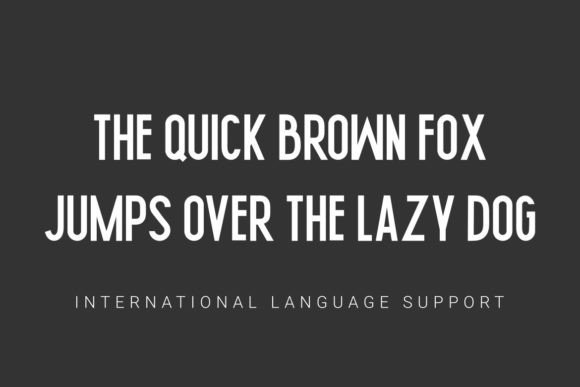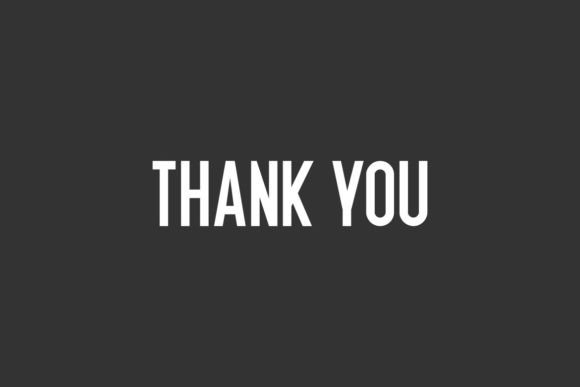
Introduction to Nikeflix Font Font
Fonts play a crucial role in design, and the Nikeflix Font font is a typeface that brings both character and versatility to any project. Whether you’re working on a branding project, a website, or a print design, the Nikeflix Font font offers a unique style that can elevate your work.
Nikeflix is a simple and bold sans serif font.
This beautiful and professional typeface is suitable for film posters, headlines, block letters, subheadings, logo designs, and so much more .
Key Features of Nikeflix Font Font
Why Choose Nikeflix Font Font?
The Nikeflix Font font is more than just a typeface – it’s a design tool that helps you communicate your message with style and clarity. Its unique character set and versatile design make it suitable for a wide range of applications, from elegant invitations to bold headlines.
With its carefully crafted letterforms and balanced proportions, the Nikeflix Font font ensures readability and visual appeal across all mediums.
What makes Nikeflix Font font special?
The Nikeflix Font font stands out with its unique design, exceptional readability, and versatility across various design applications.